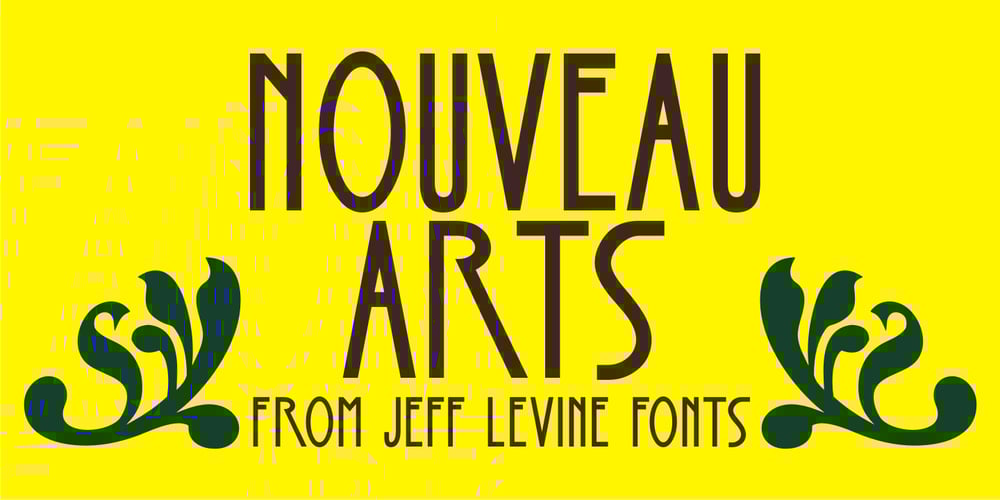
Nouveau Arts JNL Font Family was designed by Jeff Levine and published by Jeff Levine. Nouveau Arts JNL contains 1 styles and family package options. The hand lettered title on sheet music for 1915’s novelty song “Gasoline Gus and His Jitney Bus” by Byron Gay and Charley Brown offered up the lettering style which is now Nouveau Arts JNL.